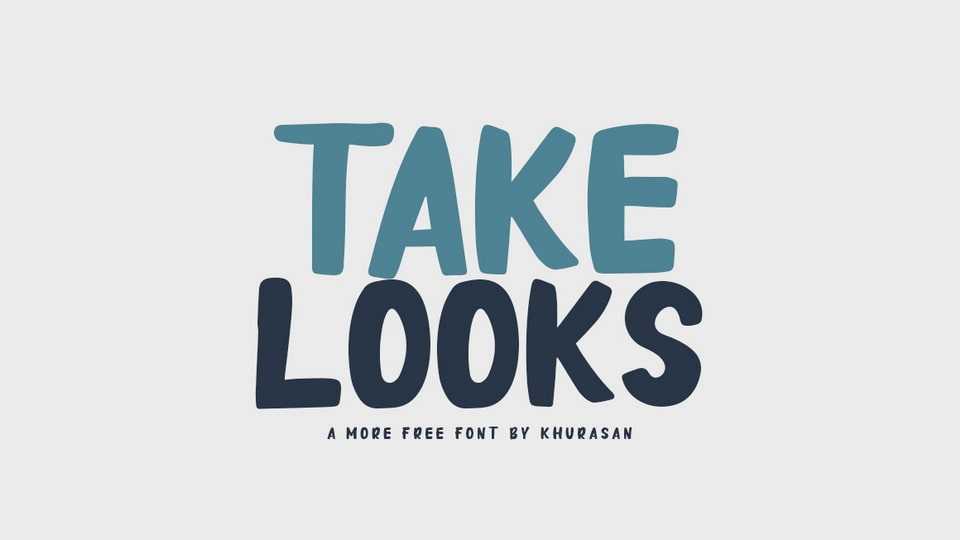
Download Take Looks font, a bold and playful hand lettered typeface. Take Looks is perfect for posters, logos, magazines, book covers, banners, and many more lovely designs!